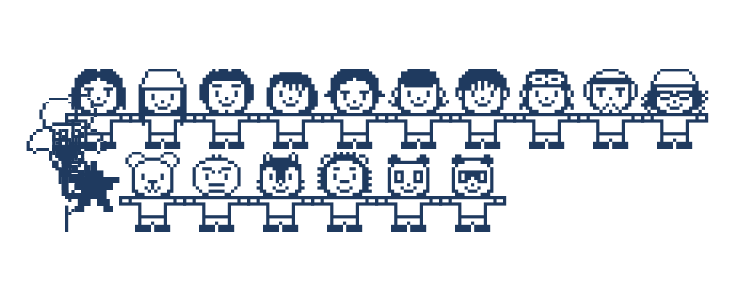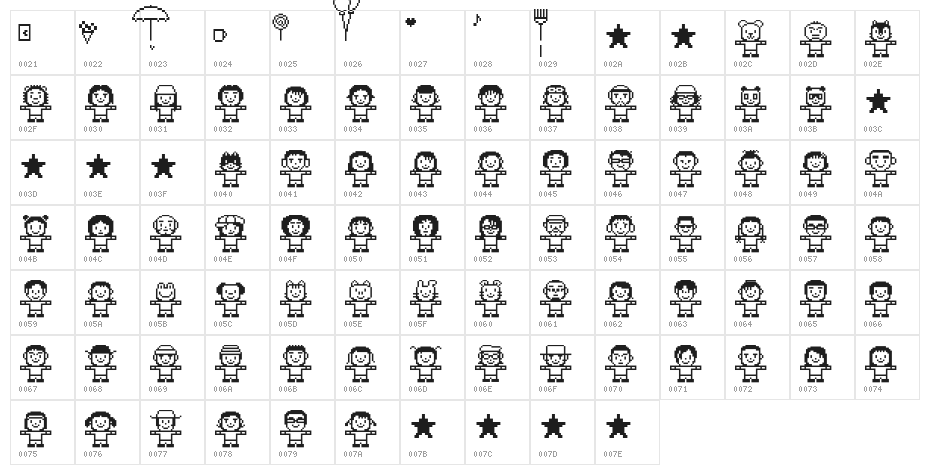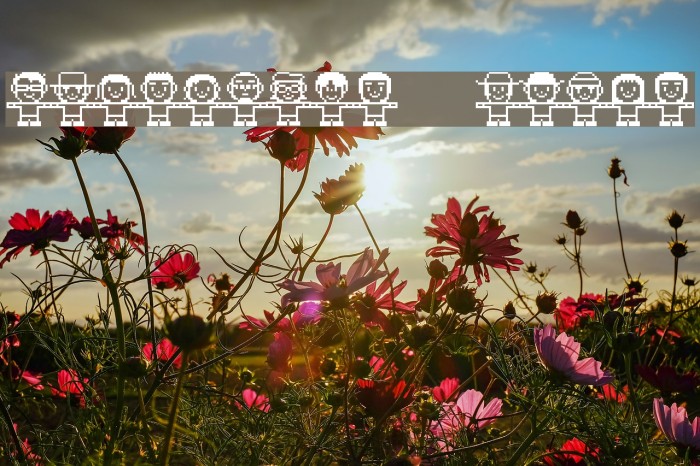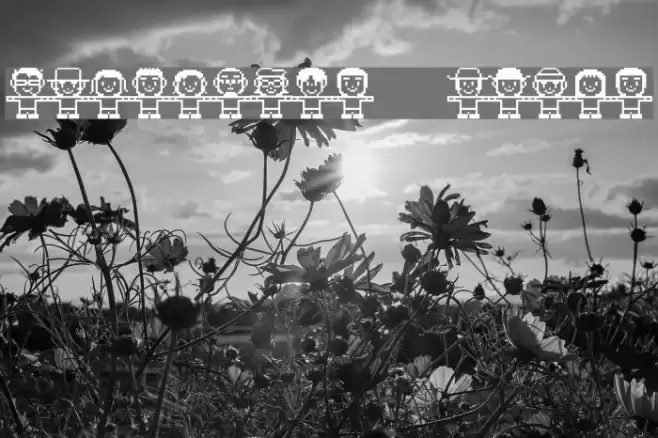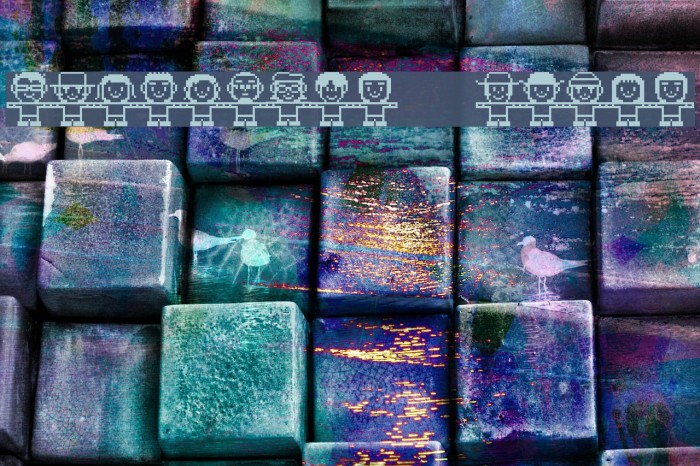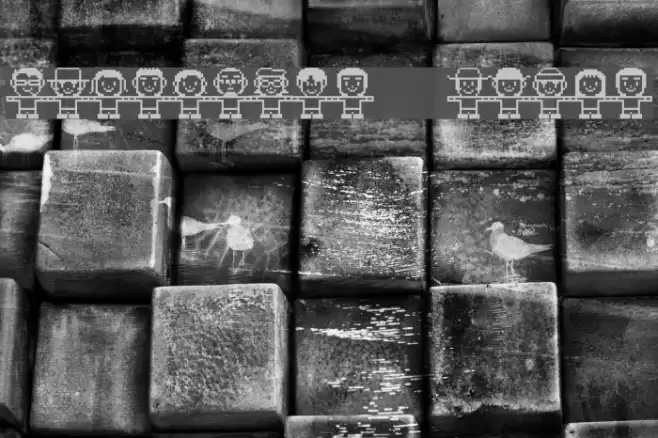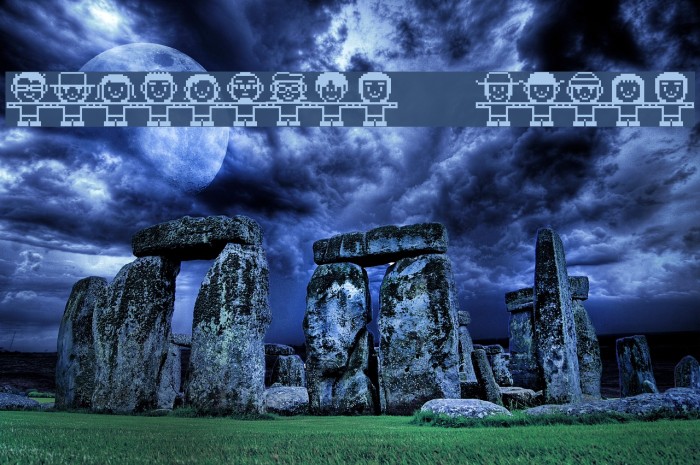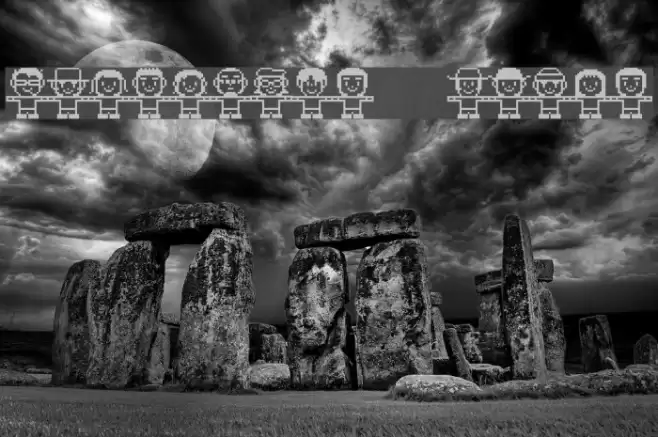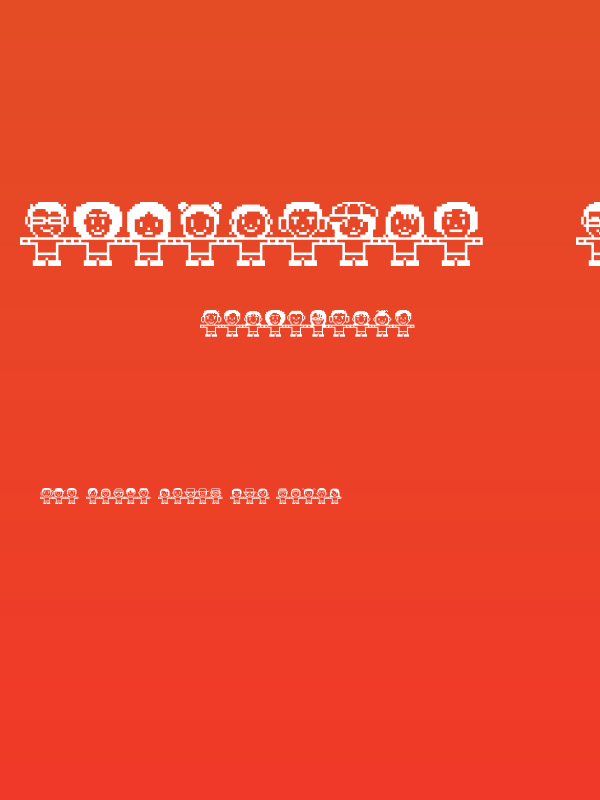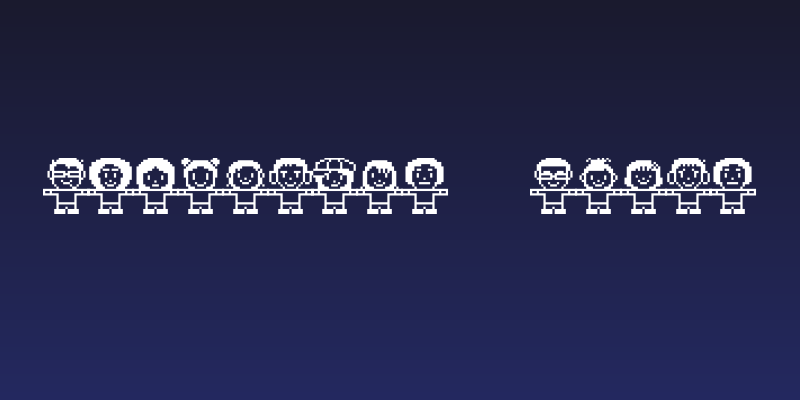
FolkDance white Font
FolkDance white Description
A playful, pixel-art style decorative font featuring characters with joined hands, each glyph represented by a unique cartoon person or animal. The design is monochrome, blocky, and evokes a retro video game aesthetic.
| Overall Style | Playful, Retro, Decorative |
| Use Case | Headlines, Logos, Posters, Themed graphics |
| Proposed Projects | ChildrenΓ’β¬β’s books, educational materials, playful posters, retro game interfaces, event flyers. |